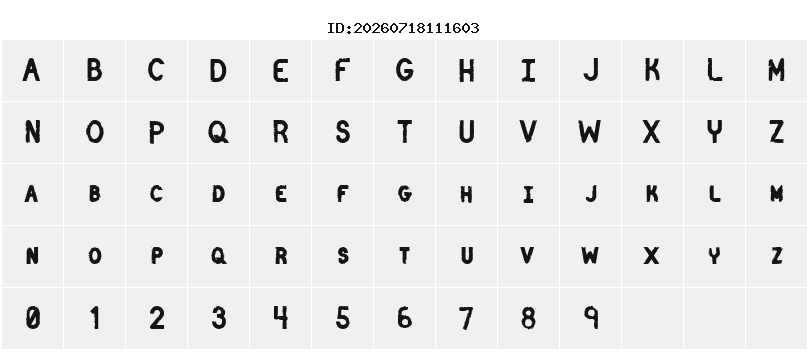
Catenary Stamp Preview
• Font Name: Catenary Stamp
• Designer: CC Marshall
• Manufacturer: Active Depth
About Catenary Stamp.ttf
Catenary Stamp.ttf is a modern, elegant sans-serif font designed for ultimate readability and visual harmony. Perfect for branding, headlines, web design, and print materials.